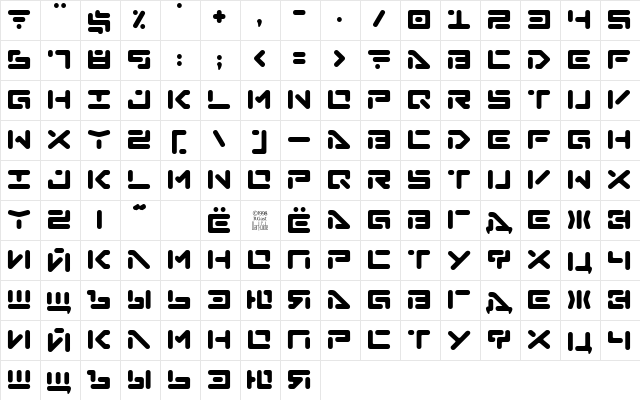
AbductionCyr Regular Font Preview
AbductionCyr Regular
Design Context for AbductionCyr Typeface
AbductionCyr is a composed and adaptable typeface that performs quietly and consistently across a wide range of design contexts.